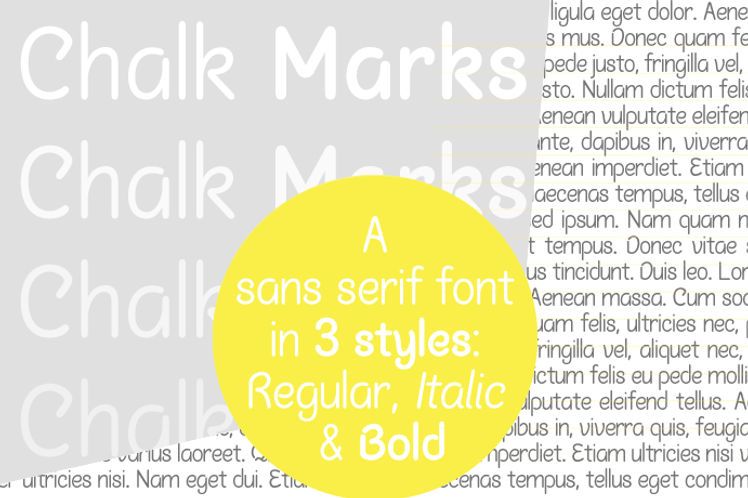
15 Best Chalk Fonts Most Unique to Any Design Idea
The moment you wrote the words on the school blackboard was a special moment. Everything related to chalk may seem childish and less elegant. However, the right chalk font design will make the mood of your template even more unique and stand out.
Best Chalk Font for Any Design Idea
1. Chalk Board
Image 43
Chalk Board font can bring happy moments at school, in designs that are energetic, ambitious, and fun. Usually, a design with a theme like this will be even more interesting with a font like this chalkboard.
2. Heinzo
You can probably conclude when you first see this font collection from Heinzo, that this is a unique font. Heinzo is a display typeface that has a playful impression. This will probably be suitable for children’s template designs that they will find interesting. If you like this Chalk lettering font, download it and start designing.
3. Chalk-Y
Next, a font that can be used as a recommendation for a typical school background design is Chalk-y. An attractive sans font from Chalk-y has lighter chalk strokes. Almost precise letters, with medium size, make designs using Chalk-y look natural like handwriting on a blackboard.
4. Chalkzone
There are many creations of letters with shades of chalk fonts like ChalkZone. If you prefer precise, consistent, and display-friendly fonts, then Chalkzone is the best. The bold and firm alphabet gives an interesting and noticeable impression.
5. White Chalk
This next font is similar to Chalkzone, but what makes it different is the size of the alphabet. White Chalk comes with a bold and thick design, as well as the entire uppercase alphabet. This chalk-style serif font might be suitable for a coffee shop or any fast food design.
6. Blackway
Not really a typical chalk font, but Blackway can give off the same vibes. This charming font is a hand-brush font that has consistent strokes. On the other hand, Blackway also has a slightly destroyed style design that is almost the same as the lime.
7. Santy Ehiza
You want to have a unique design with a chalk theme, but it doesn’t look too much you need another font. Here’s Santy Ehiza who can accompany your chalk design to make it even more interesting.
8. Nice Chalk
Do you want a design for a fun kids’ template? Nice Chalk will help you provide a font that can balance the design. Apart from the inconsistent appearance of the letters, it brings a feeling like when we were little. Gives a less tidy but comfortable impression.
9. Chick-Calk
Unlike the previous fonts, Chick-Chalk has a very precise and neat alphabet appearance, despite its unique design. This is not a typical chalk font written in one-hand stroke. Instead, Chick-Calk is a font that is intentionally rewritten to produce a bold and scratchy appearance.
10. Chalk Marks
To produce a believable, old-school design, you have to be observant. That design is not only about display fonts but also other fonts that describe the vision of your template. Chalk Marks is the best recommendation for you. This font also has 3 styles ranging from regular, italic, and bold.
11. Marvelous Photograph
Do you remember when writing on a blackboard with a sharp chalk side, which produces very light and thin writing? Marvelous Photograph will help you give a font that looks like chalk to a design with a bold display. This font are fits for corporate purpose such as: law firms marketing company, photography company, or graphic design company.
12. Jelly Belty
Delivering a bold, unique, and youthful design is not an easy job. Your designs that are old school and young with a chalk theme will be edgier and vintage with a font from Jelly Betty.
13. Midnight Chalker
Of the many font recommendations, Midnight Chalker might be unique. It is similar to a brush font, but if you notice some edges, it looks like chalk. You can put the Midnight Chalker on an ambitious, teenage design.
14. Chalks Scratches
Great designers are those who can understand the details of the theme so that the feeling and message of the design are conveyed. The next Chalk font comes from Chalk Scratches with a natural look, and a slightly destroyed touch of style. This font comes in a bold style, which is perfect for highlighting designs.